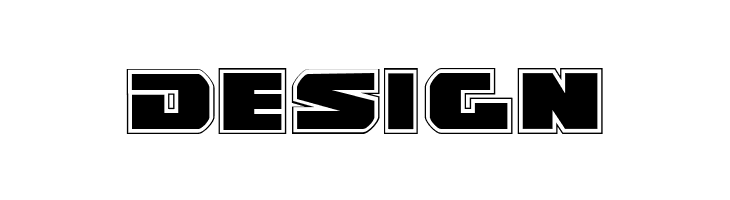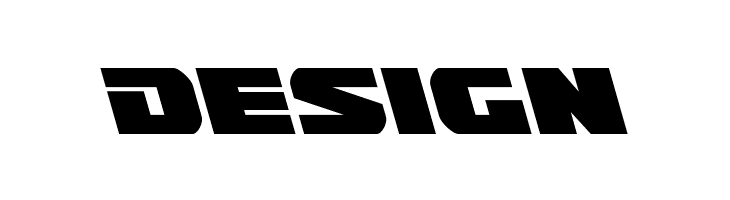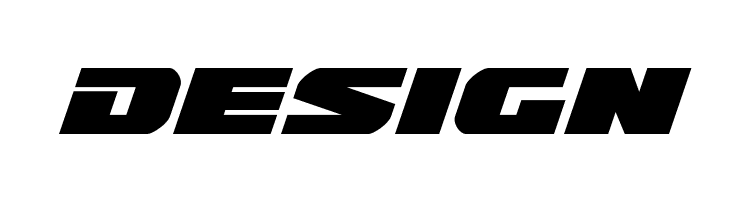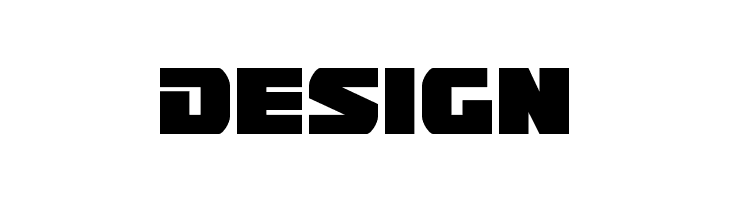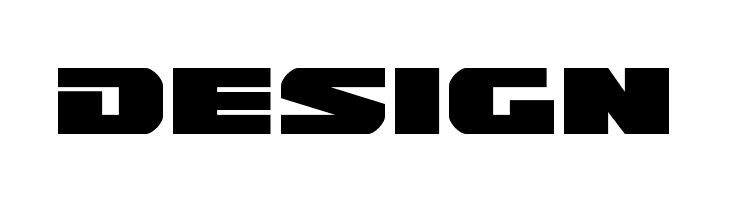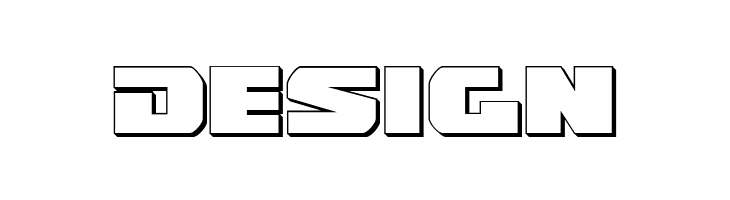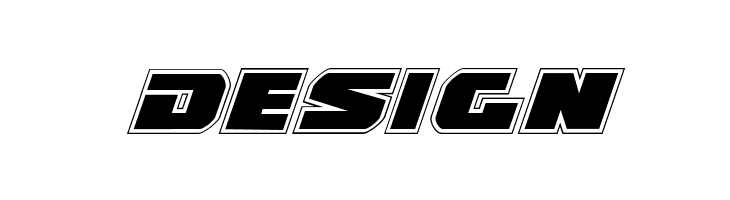
Hai Angellica! Font
- Font: Hai Angellica!
( Fonts by Iconian Fonts - Daniel Zadorozny )
A bold, angular font with a leftward slant and futuristic style.